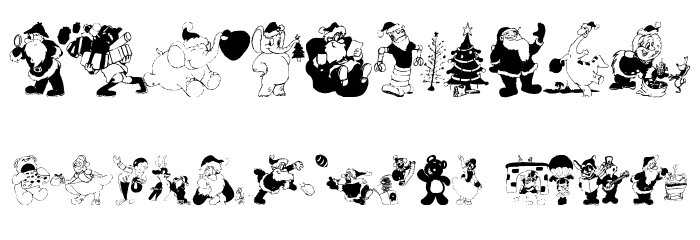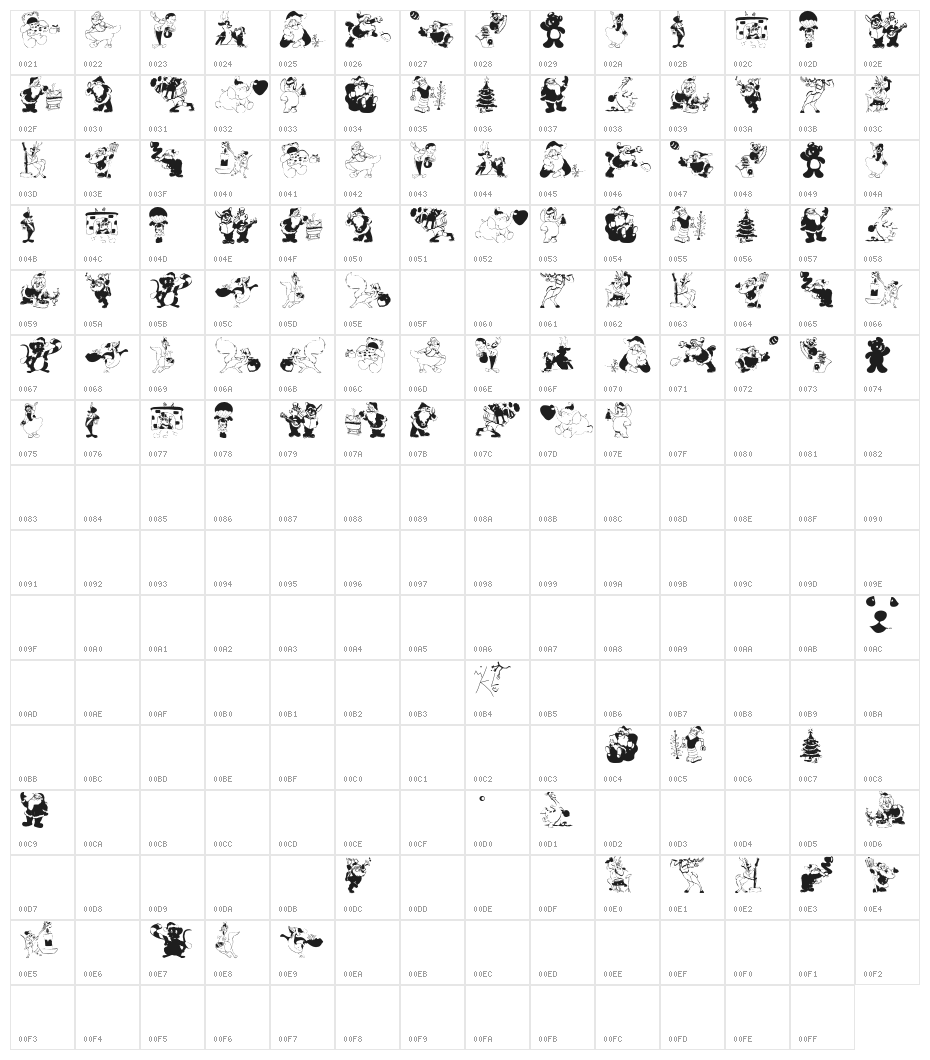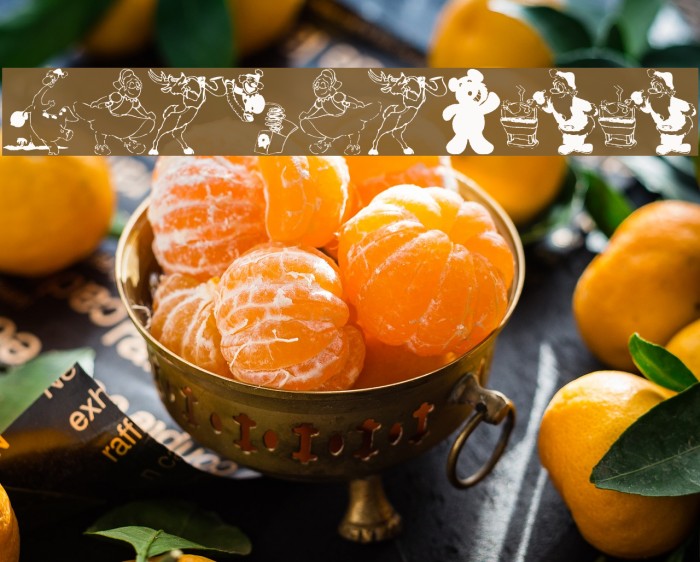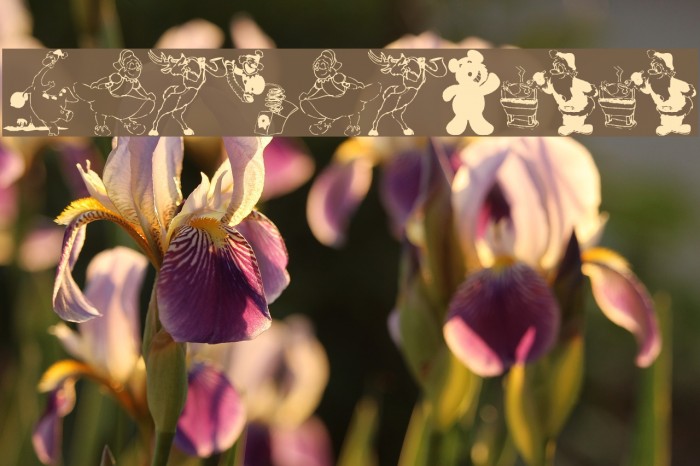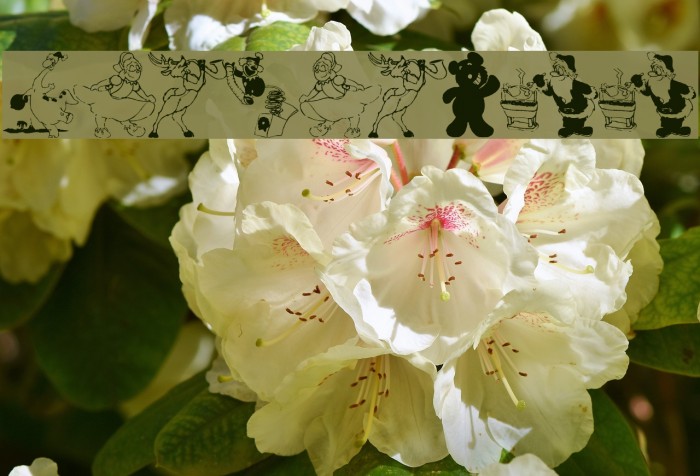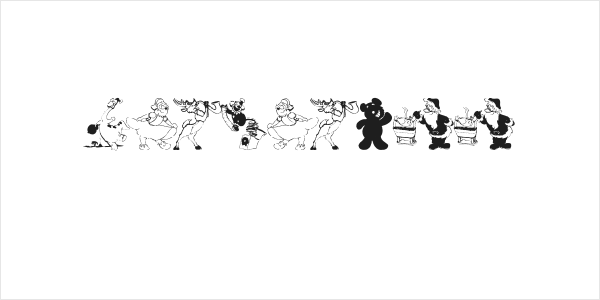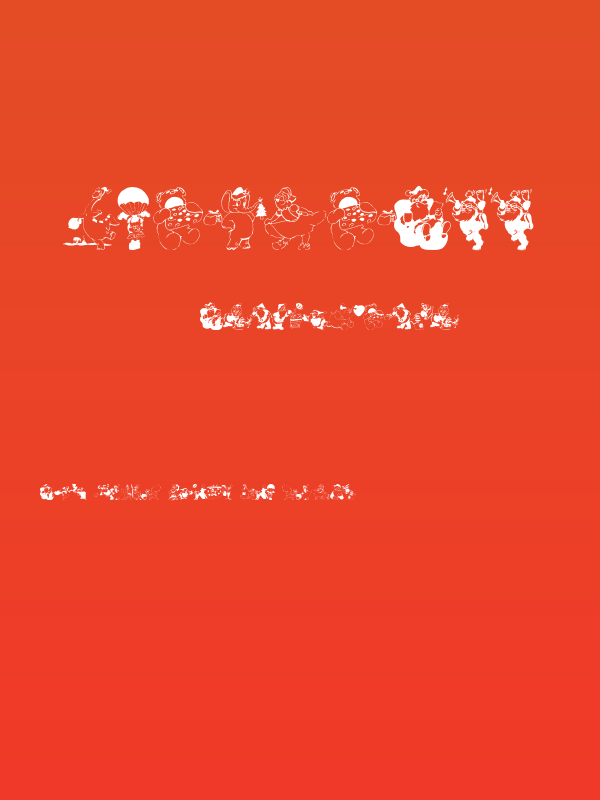
XmasBatzz Font
XmasBatzz Description
This is a decorative font featuring whimsical and festive illustrations instead of traditional alphanumeric characters. Each character is represented by a unique holiday-themed image, such as Santa Claus, reindeer, Christmas trees, and other seasonal motifs. The playful and cartoonish style of the illustrations adds a cheerful and lighthearted touch, making it ideal for holiday-themed projects. The characters are intricately detailed, capturing the essence of holiday joy and celebration. This font is perfect for adding a festive flair to any design project, creating a sense of warmth and nostalgia.
| Use Case | Logos, Headlines, Decorative elements |
| Proposed Projects | Ideal for holiday cards, festive invitations, seasonal decorations, and Christmas-themed posters. |